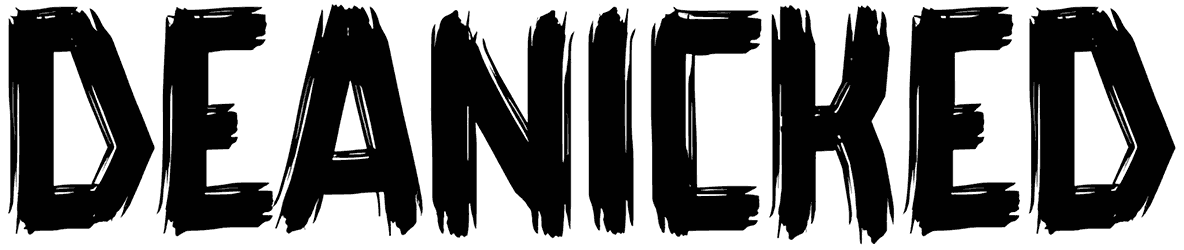
The Murder Font
If you need a scratched font with a trash style to arouse a sense of excitement, mess, grunge, and horror in your typography, The Murder would meet your needs. Although it doesn’t support lowercase letters and punctuations, it can be included in graffiti, movie posters, and stickers, also it will enhance the quality of your work.
Designed by: Fluffyartstudio